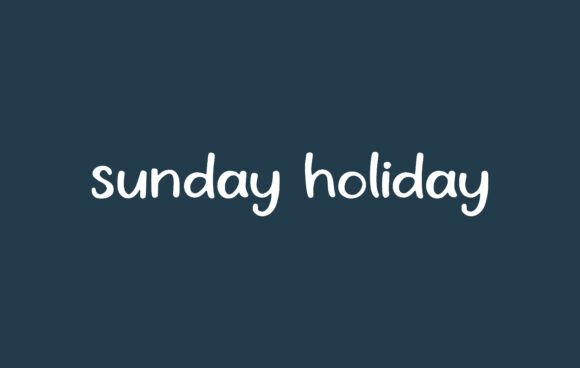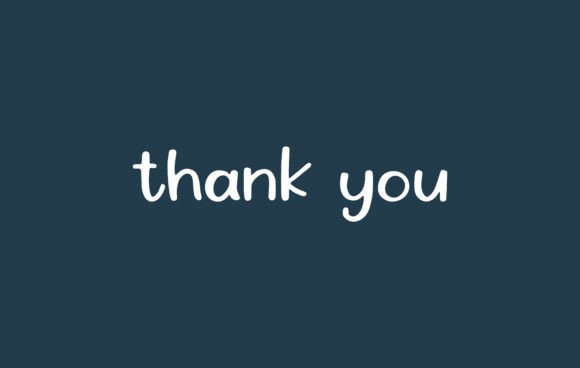
Introducing Disco Queen Font: The Ultimate Choice for Creative Designs
Are you a designer or crafter looking for a unique and stylish font to elevate your creative projects? Look no further than the Disco Queen font, an authentic handwritten font with a romantic touch that’s sure to capture the hearts of your audience. In this article, we’ll dive into the features and benefits of Disco Queen font, and explore how it can be used to take your designs to the next level.
What Makes Disco Queen Font So Special?
Disco Queen font is an expertly designed font that’s been crafted to be a true favorite among designers and crafters. Its authentic handwritten style gives it a personal and intimate feel, making it perfect for a wide range of creative projects. Whether you’re looking to create stunning magazine headlines, eye-catching social media graphics, or beautiful wedding invitations, Disco Queen font is the perfect choice.
Key Features of Disco Queen Font
- Legibility: One of the standout features of Disco Queen font is its exceptional legibility. This font is designed to be easy to read, making it perfect for use as both title and body text.
- Romantic Touch: Disco Queen font has a romantic and whimsical feel that’s sure to add a touch of elegance to your designs.
- Versatility: This font is incredibly versatile, making it suitable for a wide range of creative projects, from magazine headlines and social media graphics to wedding invitations and cards.
Uses for Disco Queen Font
So, what can you use Disco Queen font for? The possibilities are endless! Here are just a few ideas to get you started:
- Magazine Headlines: Add a touch of glamour to your magazine headlines with Disco Queen font. Its bold and eye-catching style is sure to grab the attention of your readers.
- Social Media Graphics: Create stunning social media graphics with Disco Queen font. Its unique and stylish style is sure to make your posts stand out from the crowd.
- Wedding Invitations: Make your wedding invitations truly special with Disco Queen font. Its romantic and elegant style is perfect for wedding stationery.
- Branding: Use Disco Queen font to create a unique and memorable brand identity. Its stylish and sophisticated style is sure to leave a lasting impression on your customers.
Why Choose Disco Queen Font?
So, why should you choose Disco Queen font for your creative projects? Here are just a few reasons:
- Unique Style: Disco Queen font has a unique and stylish style that’s sure to set your designs apart from the crowd.
- Ease of Use: This font is incredibly easy to use, making it perfect for designers and crafters of all skill levels.
- High-Quality Design: Disco Queen font is expertly designed to provide a high-quality finish that’s sure to impress.
In conclusion, Disco Queen font is an exceptional choice for designers and crafters looking for a unique and stylish font to elevate their creative projects. Its authentic handwritten style, romantic touch, and versatility make it perfect for a wide range of designs, from magazine headlines and social media graphics to wedding invitations and cards. With its exceptional legibility, ease of use, and high-quality design, Disco Queen font is sure to become a favorite among designers and crafters. So why wait? Download Disco Queen font today and take your creative projects to the next level!
- Is Disco Queen font suitable for body text? Yes, Disco Queen font is suitable for body text. Its exceptional legibility makes it perfect for use as both title and body text.